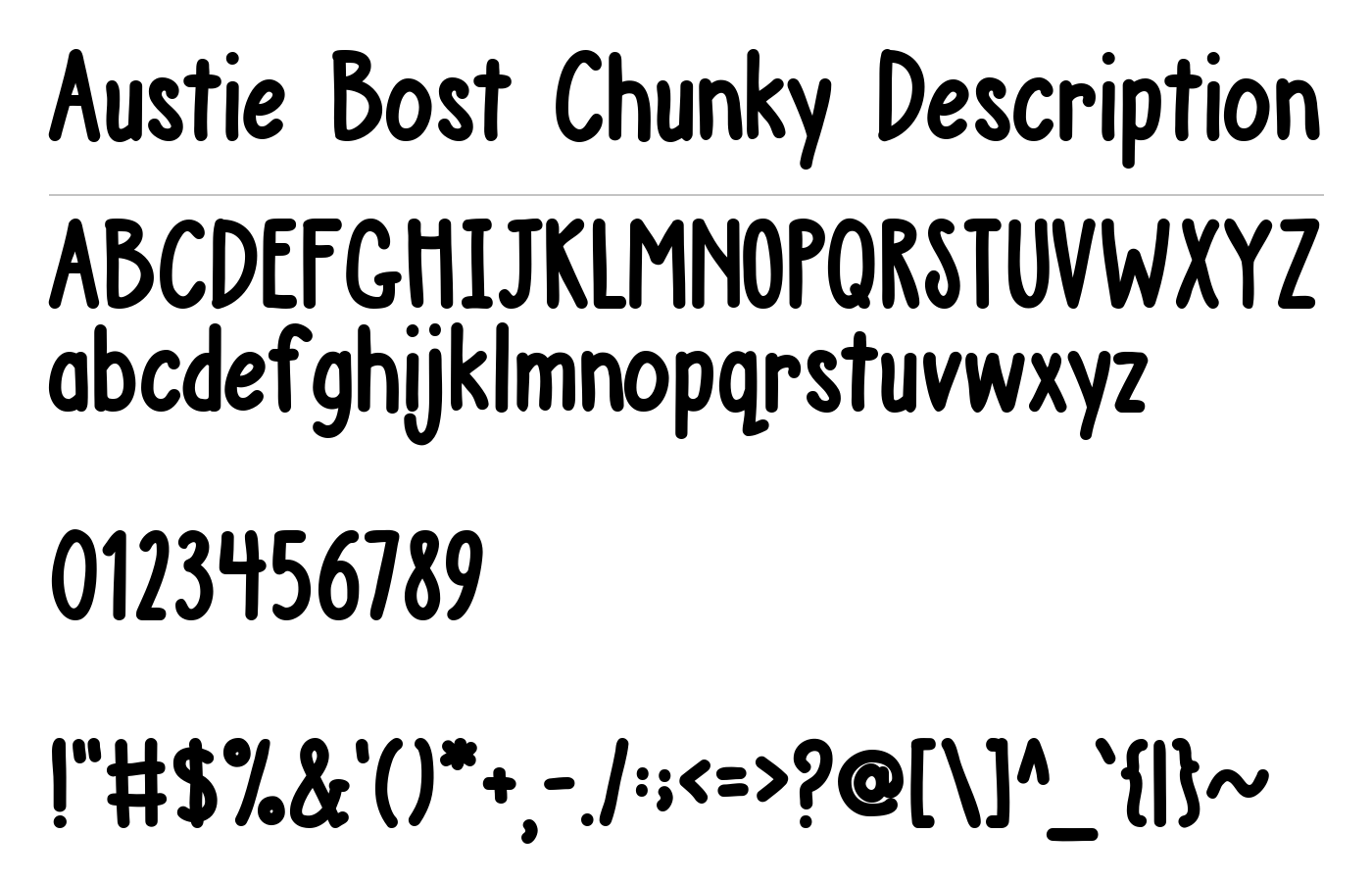
Austie Bost Chunky is a playful, bold sans serif font with a chunky, hand-drawn feel that brings warmth and personality to any design. Its slightly irregular shapes, rounded edges, and friendly curves make it ideal for casual, fun branding, children's materials, or creative headlines that need to stand out with a welcoming vibe. This font works best in large sizes where its unique character and charm can shine.
Austie Bost Chunky Description Font
About Austie Bost Chunky Description Font
| Font family | Austie Bost Chunky Description Font |
| Designer | Austin Owens |